I like the handwriting shown off here a lot tbh
I know it takes more time to hand letter but I think it's working for you tbh.
I've done lettering 2 ways in the past:
- Typically I've used Calligraphr to create typable fonts from my handwriting. There is both a free and premium option- the main limiter on the free option is the # of characters you can create for a single font- you might have to be stingy with some lesser used punctuation and hand letter them or find an alternative potentially but I've made due with it.
The pros are that you get the best of both worlds with a unique font that has your own touch & the convenience of typing and using text editing tools. The cons are that it's hard to make a font that's just right
so far I've made 2 fonts this way with the free mode, the first one I used for my first Tapas Comic, and looked like this:
But I thought it was a little too thin/tall, so afterwards I made this one:
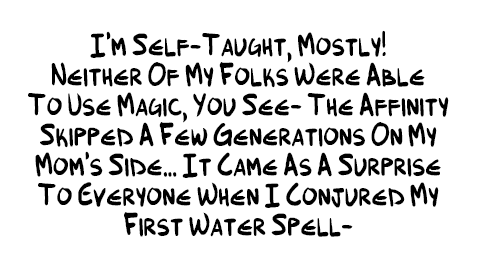
which isn't perfect but I like pretty well... but some of the punctuation is wonky so I'm thinking about adjusting it more or making a 3rd one before starting my next comic lol. You can edit the characters as much as you want on the template though so it's not like a 'one and done" kind of deal~
- I've also handwritten one comic that I did for an anthology last year, although it was only 10 pages long lol. For that I stole a piece of advice I read on this forum a couple of years back about typing out what you want to ink first and then using that as a guide (kind of like the "pencils" to your "inks" for the letters lol). I thought it turned out pretty nice actually
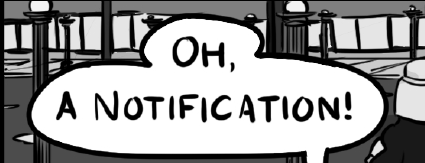
I've contemplated switching to hand lettering and just practicing it tbh but the only thing that turns me off is the time it takes lol. Not only to write everything out, but then if you have to change something later... oof. I thought it was fine for something only 10 pages long tho haha